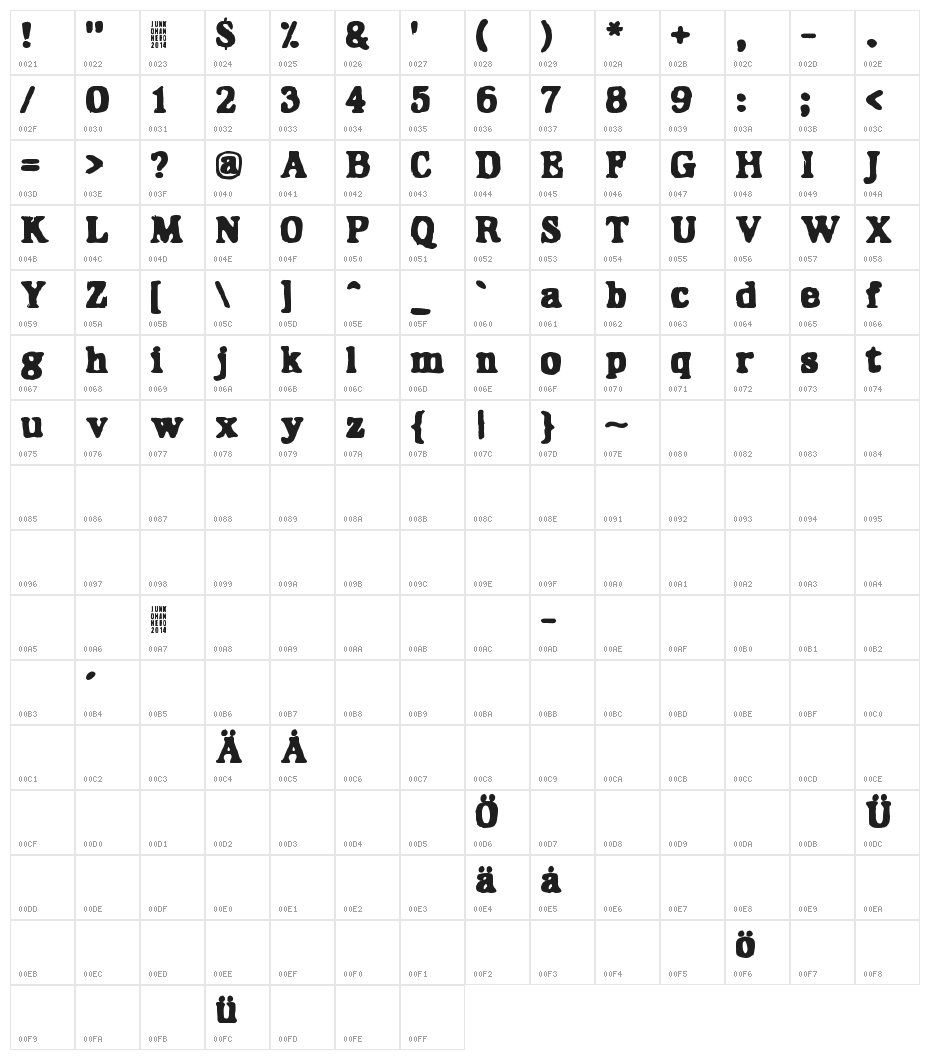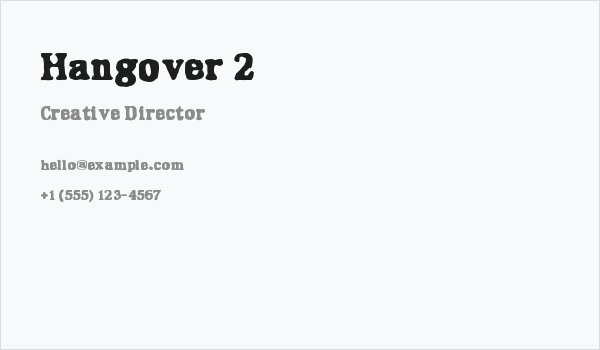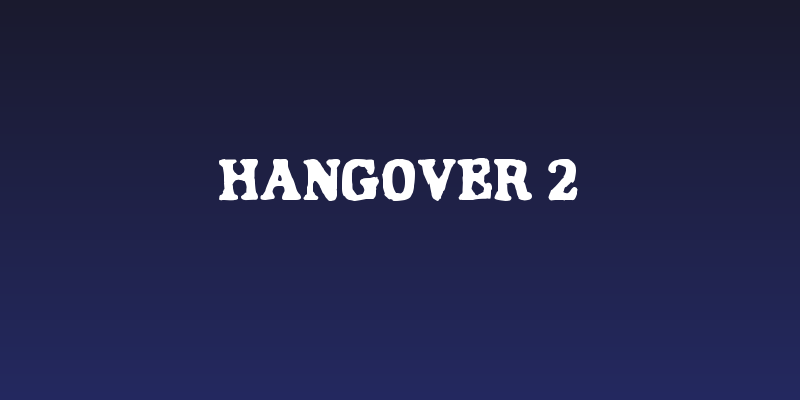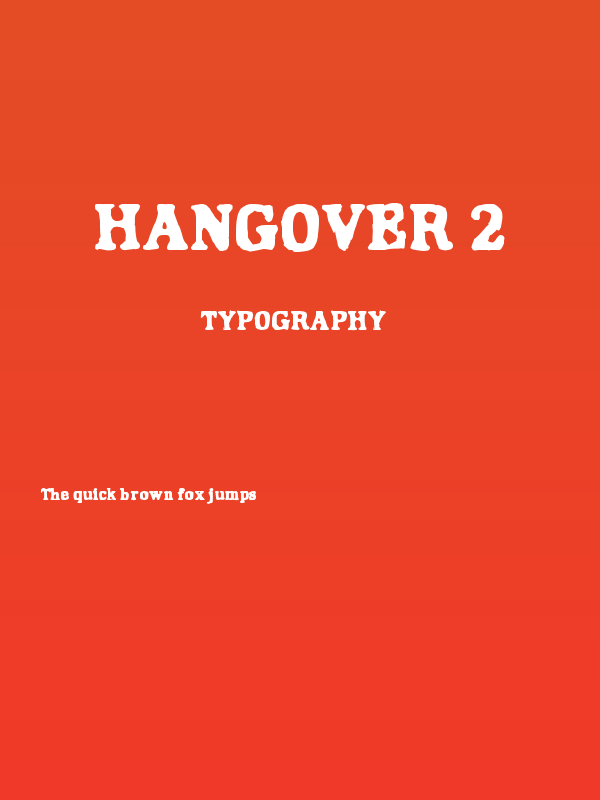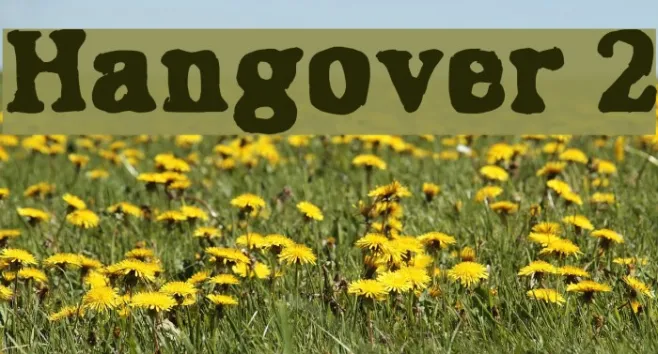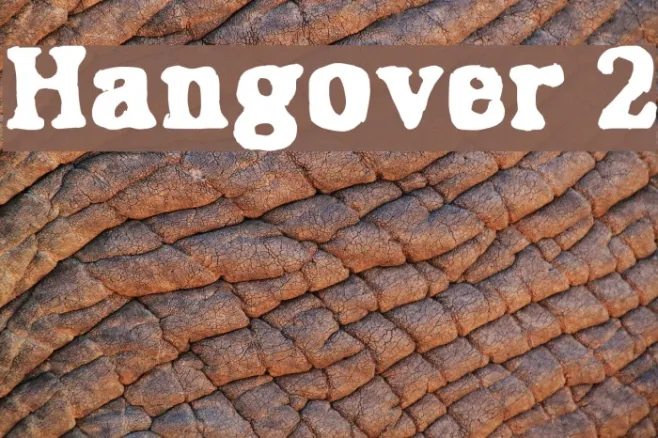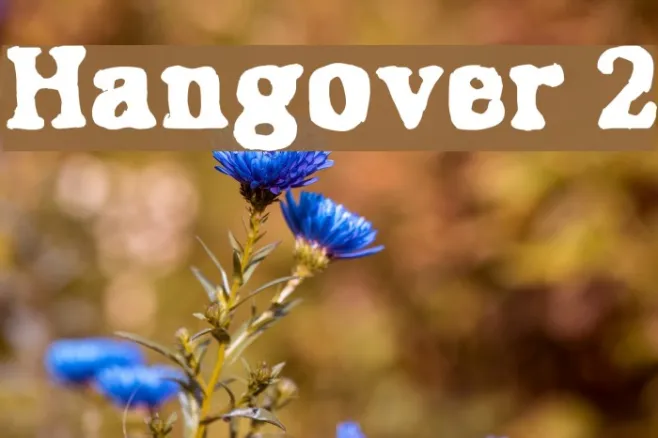
Hangover 2 Font
Hangover 2 Description
This font features a bold and rugged design with a distressed, grunge-like appearance. The characters are thick and heavy, with irregular edges that give them a hand-crafted, organic feel. The uppercase and lowercase letters maintain a consistent weight, creating a strong visual impact. Numbers and special characters follow the same design ethos, ensuring uniformity across all glyphs. The font's unique style is reminiscent of vintage posters or signage, making it ideal for projects that require a bold statement.